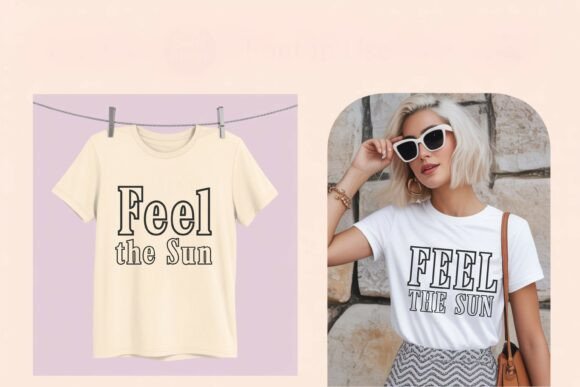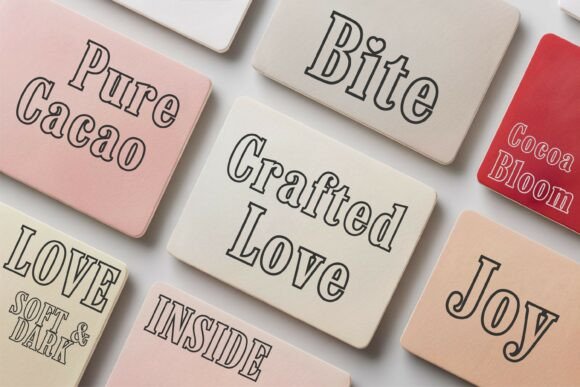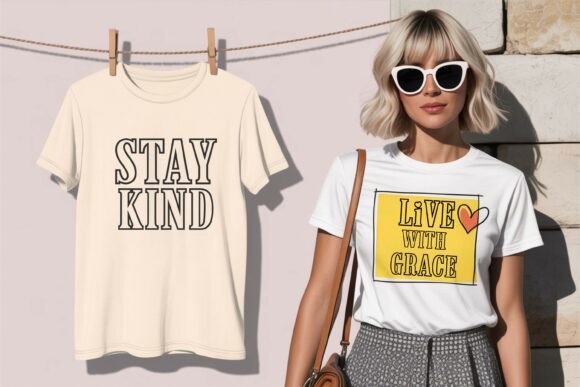
Introduction to Cordavia Line Font
Cordavia Line is a charming slab serif outline font with a sweet and expressive twist.
Designed for creators who want boldness with a playful heart, Cordavia Line features clean lines, classic slab serifs, and adorable heart details that make your designs stand out Ideal for quotes, apparel, branding, packaging, logos, or anything that needs a bit of personality, this font blends retro appeal with modern versatility.
Key Features of Cordavia Line Font
Why Choose Cordavia Line Font?
Cordavia Line Font offers exceptional quality and versatility, making it a valuable addition to your design toolkit. Whether you’re creating for personal projects or commercial use, Cordavia Line Font delivers professional results.